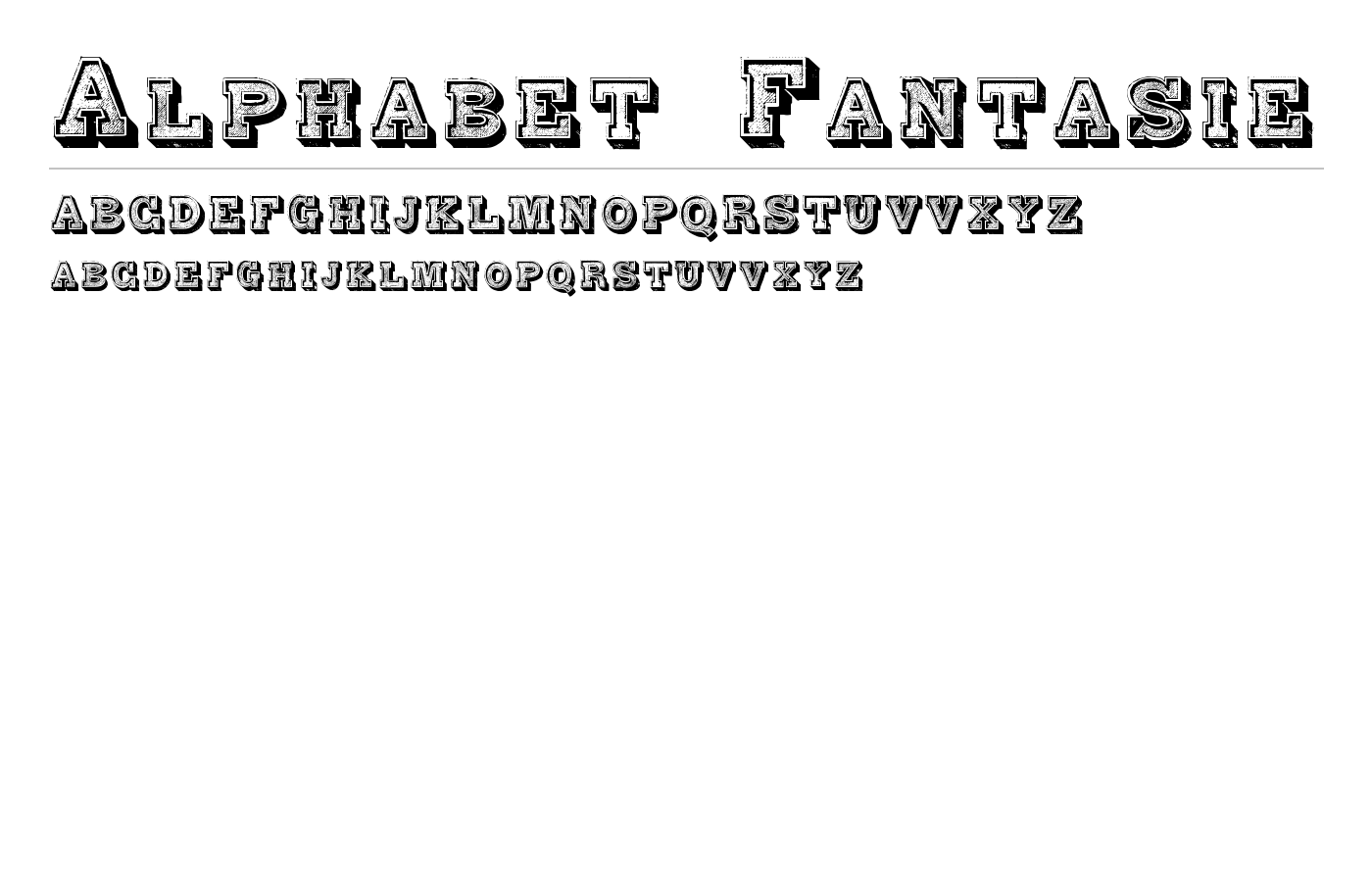
Alphabet Fantasie is a bold slab serif font with a vintage, western-inspired look characterized by thick blocky serifs and a textured shadow effect that adds depth and a hand-crafted feel. Its all-uppercase letterforms exhibit strong contrast with rough edges and decorative details, making it ideal for eye-catching headlines, posters, and branding that seeks a rugged, nostalgic, or playful atmosphere. This font works best in display settings where its striking, ornamental style can stand out and convey personality.
Alphabet Fantasie Font